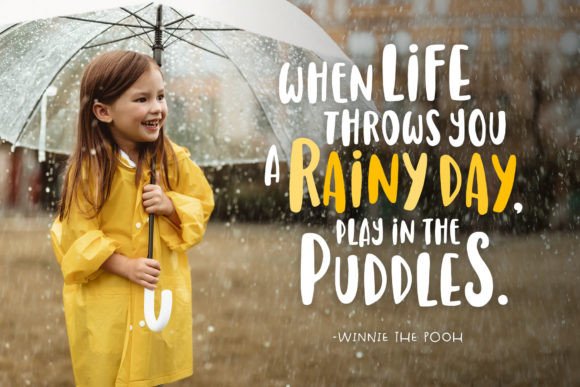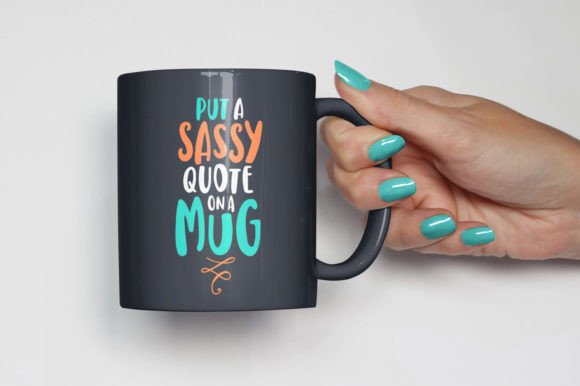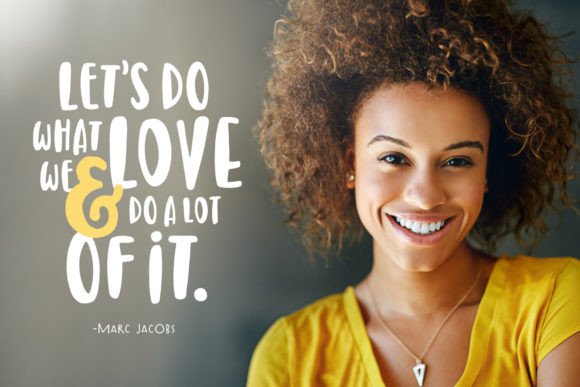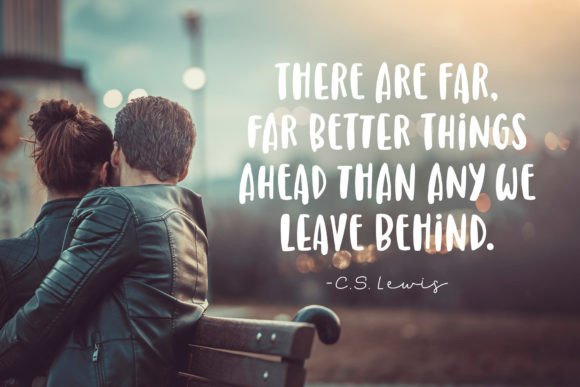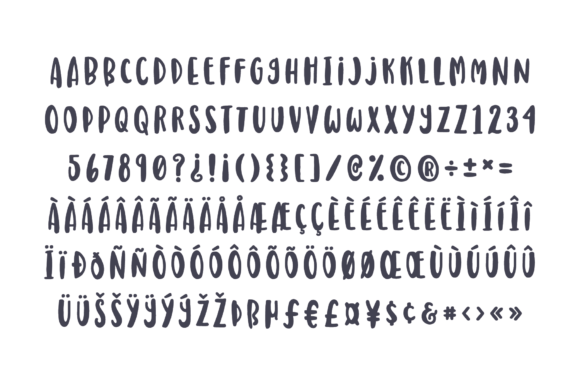
Introduction to Lemon Tart Font
As a designer, there’s nothing quite like the thrill of bringing a creative project to life. It’s that moment when you finally land on the perfect font to elevate your message – the game-changer that makes your design truly pop. For me, that moment came when I stumbled upon the Lemon Tart Font, a sweet, hand-drawn, sans serif display font that’s as versatile as it is charming.
With its high-quality design and free download availability, the Lemon Tart Font has quickly become a go-to resource for designers looking to add a touch of sophistication to their projects. Its condensed and bold style makes it perfect for creating eye-catching headlines and titles, while its transparent background allows for seamless integration with any design element.
What sets the Lemon Tart Font apart, however, is its unique two-variation system, which gives designers even more creative freedom to experiment with their designs. Whether you’re working on a branding project or a social media campaign, this font is sure to make a statement – and that’s what makes it such a valuable resource for designers everywhere.
Key Features of Lemon Tart Font
- High-quality font with a unique, hand-drawn design perfect for creative projects.
- Includes transparent background, allowing for seamless integration with various design elements.
- Font size: 300 DPI, with a scalable design for use in various creative projects.
- Features a unique, citrus-inspired design, making it perfect for food, beverage, or lifestyle branding projects.
Honest Review: Lemon Tart Font
I recently stumbled upon the Lemon Tart Font while searching for a free download to enhance my creative project. I was thrilled to discover this high-quality font, which offers a unique and modern aesthetic. The transparent background makes it easy to layer and combine with other design resources.
- Unique and modern design style
- High-quality vector graphics
- Only available in a limited number of weights (e.g., regular, bold, italic)
- No extensive language support
- Some characters may require additional styling for optimal display
Overall, I’m impressed with the Lemon Tart Font’s potential for creative projects. Its unique design style and high-quality graphics make it a valuable addition to any design resource collection. While it has some limitations, it’s definitely worth considering for those seeking a modern and stylish font.
The Lemon Tart Font is a high-quality, free download design resource that can elevate your creative project with its unique and stylish typography. With a transparent background, this font is versatile and can be used in various design applications.
To get the most out of the Lemon Tart Font, use it in conjunction with other design elements, such as images or graphics, to create a visually appealing design. You can also experiment with different font sizes, colors, and styles to achieve the desired look.
The Lemon Tart Font is commonly used in creative projects such as social media graphics, posters, flyers, and business cards. It’s also suitable for use in presentations, such as PowerPoint or Keynote, to add a touch of elegance and sophistication.